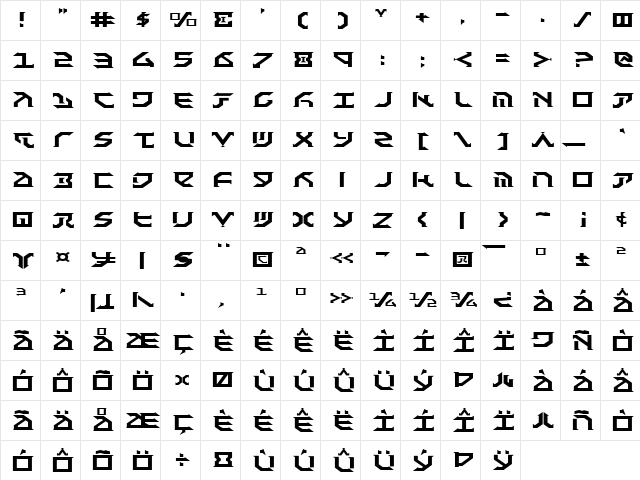
Fantazian Expanded Expanded
Design Context for Fantazian Expanded Typeface
Fantazian Expanded is a composed and adaptable typeface that performs quietly and consistently across a wide range of design contexts.